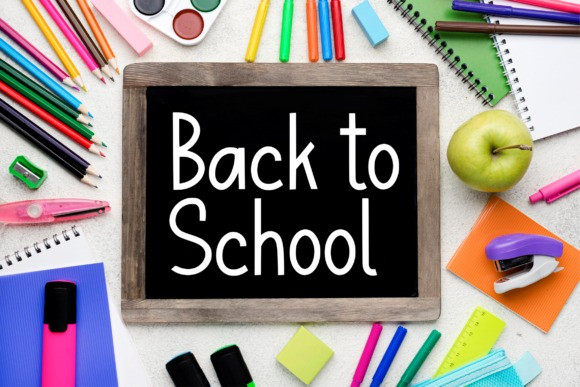
Magic Bread Font Free Font
Magic Bread Font Dafont Download magic bread font for free and create outstanding typography. explore charming designs for your creative projects and unleash your potential today!. Download free magic bread font, view its character map and generate text based images or logos with magic bread font online. Download magic bread font for pc mac for free, take a test drive and see the entire character set. moreover, you can embed it to your website with @font face support. Magic bread font is a neat and delicate display typeface with a light handwritten feel. this script font was created and shared by qwrtype foundry.
Magic Bread Font Dafont Download magic bread font for pc mac for free, take a test drive and see the entire character set. moreover, you can embed it to your website with @font face support. Magic bread font is a neat and delicate display typeface with a light handwritten feel. this script font was created and shared by qwrtype foundry. Magic bread font download is available free from fontget. magic bread is a script type font that can be used on any device such as pc, mac, linux, ios and android. Examples of this font can be found on the font site befonts – free fonts download, designed by qwrtype foundry, include the number of glyphs 230 characters. let your words take flight with this font — where modern elegance meets artistic expression. This is a tall and skinny looking handwritten font. it is perfect for product packaging, branding project, magazine covers, social media, wedding, or just used to express words above the background. Looking for a font that will add a touch of whimsy and charm to your project? look no further than magic bread, the latest creation from qwrtype foundry. with its lovely handwritten style and semi light weight, this font is perfect for projects that need a little bit of personality.
Magic Bread Font What Font Is Magic bread font download is available free from fontget. magic bread is a script type font that can be used on any device such as pc, mac, linux, ios and android. Examples of this font can be found on the font site befonts – free fonts download, designed by qwrtype foundry, include the number of glyphs 230 characters. let your words take flight with this font — where modern elegance meets artistic expression. This is a tall and skinny looking handwritten font. it is perfect for product packaging, branding project, magazine covers, social media, wedding, or just used to express words above the background. Looking for a font that will add a touch of whimsy and charm to your project? look no further than magic bread, the latest creation from qwrtype foundry. with its lovely handwritten style and semi light weight, this font is perfect for projects that need a little bit of personality.
Magic Bread Font Free Font This is a tall and skinny looking handwritten font. it is perfect for product packaging, branding project, magazine covers, social media, wedding, or just used to express words above the background. Looking for a font that will add a touch of whimsy and charm to your project? look no further than magic bread, the latest creation from qwrtype foundry. with its lovely handwritten style and semi light weight, this font is perfect for projects that need a little bit of personality.